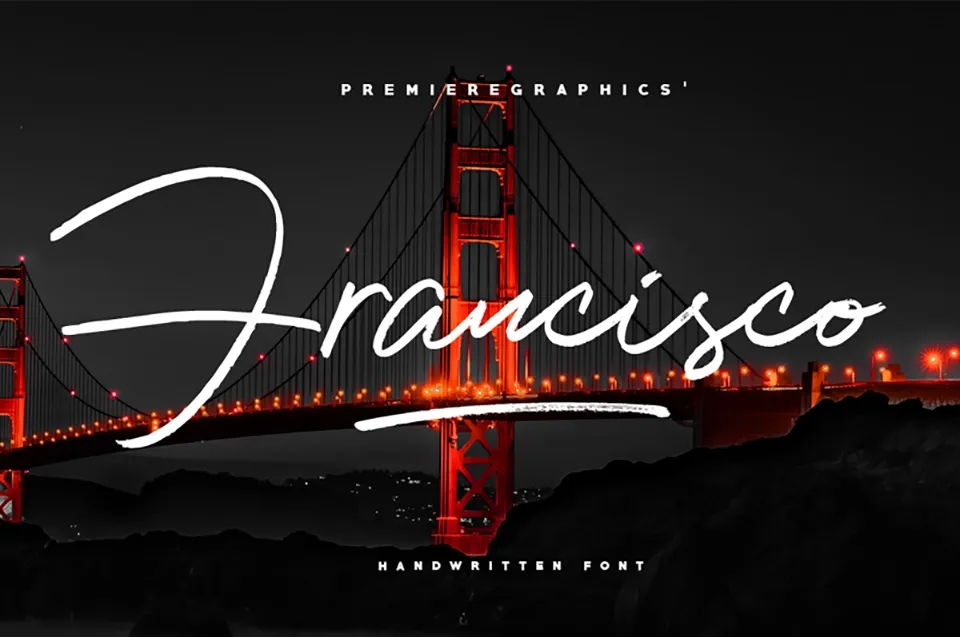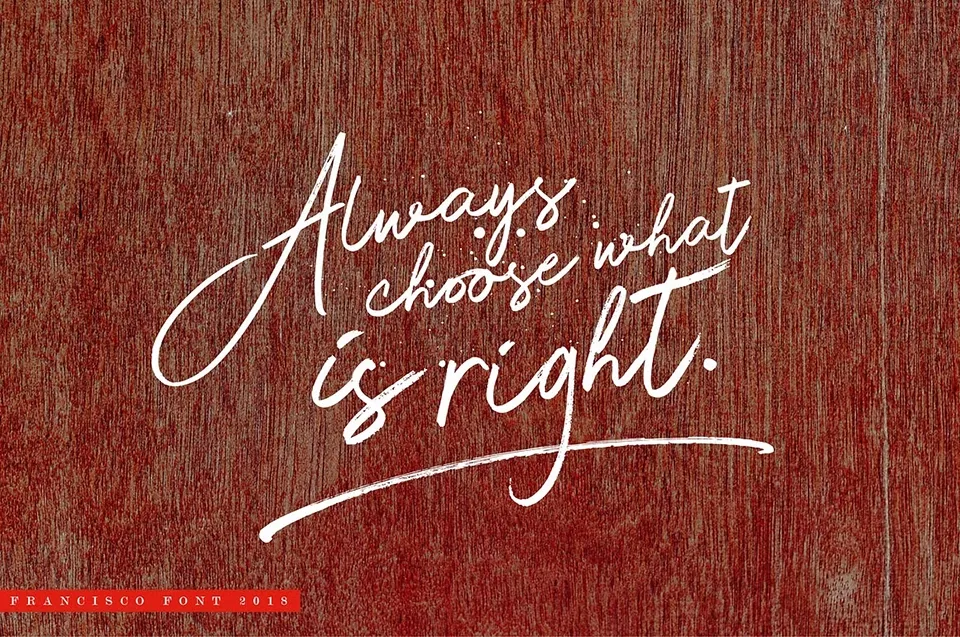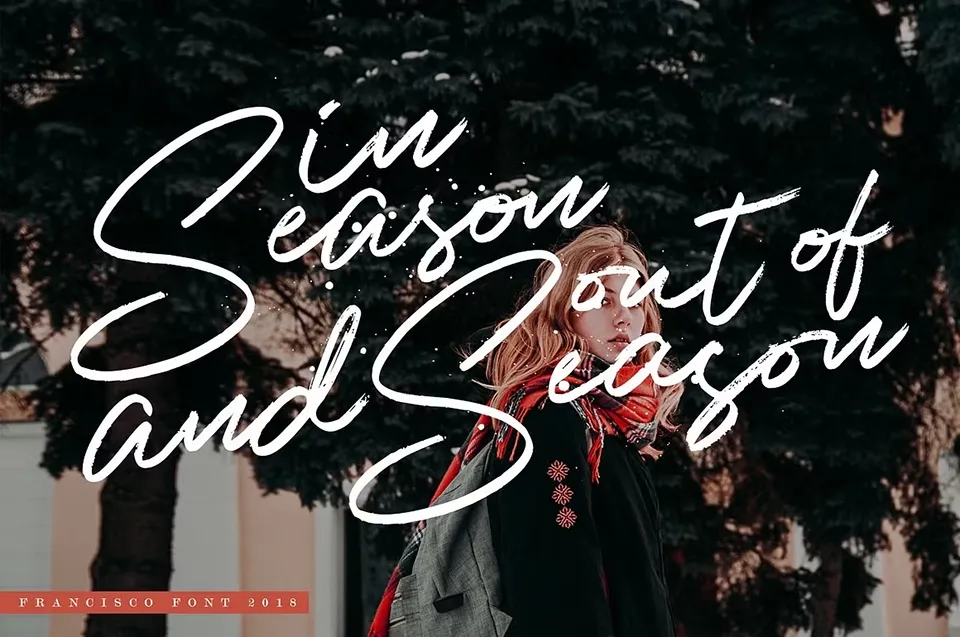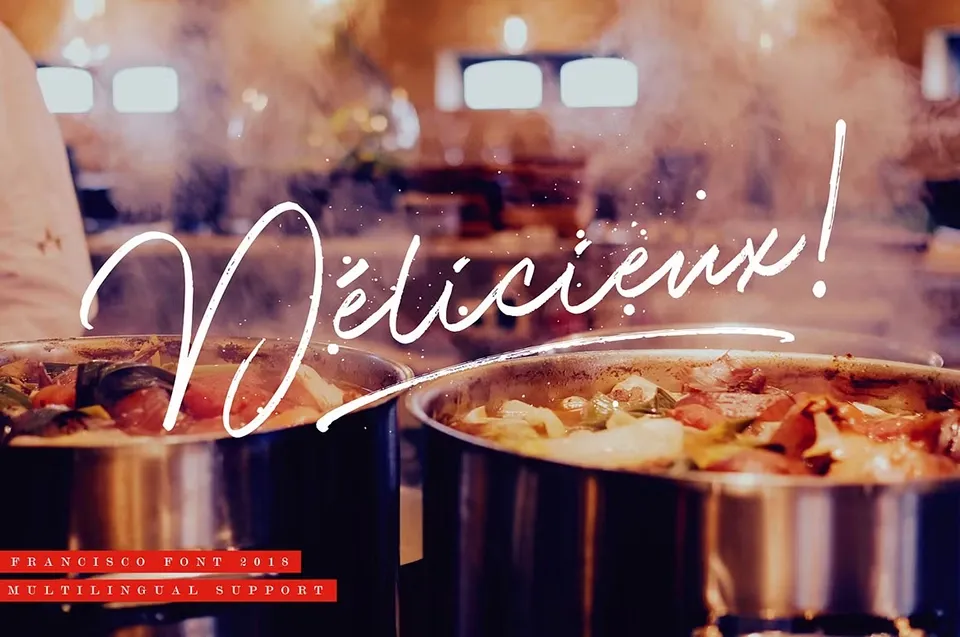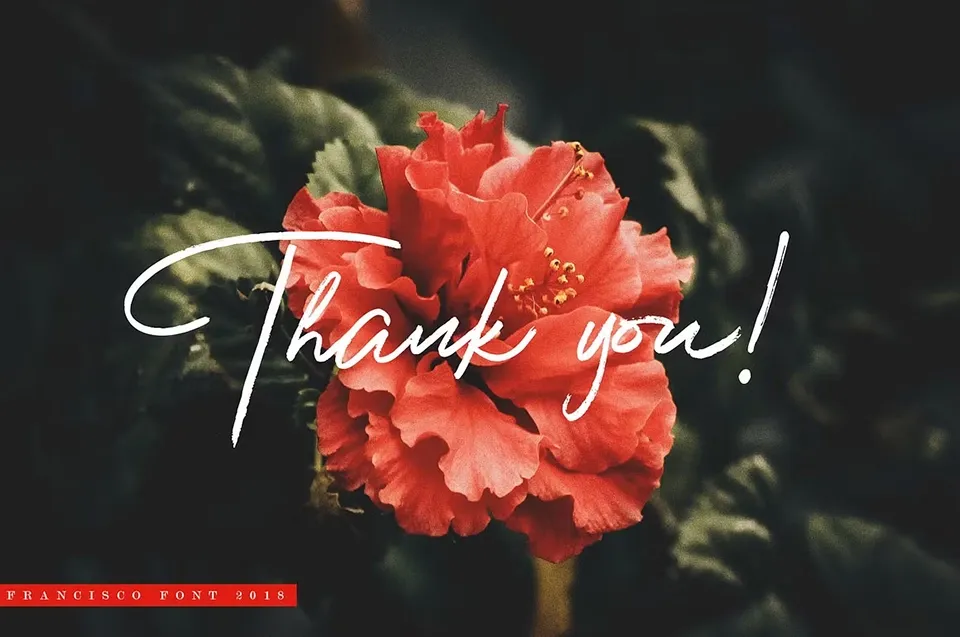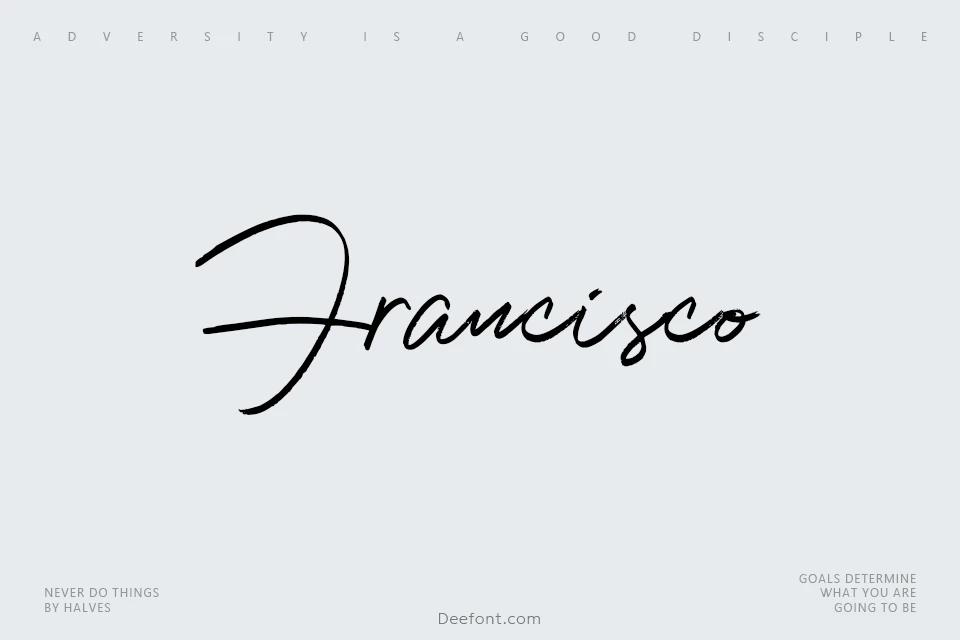
Francisco Font
Francisco Font is a stunning handwritten script font crafted by Premiere Graphics. With its realistic pen texture and flowing signature-like style, Francisco delivers authentic handwritten charm to your creative projects. This versatile typeface features elegant curves and dynamic strokes that bring a personal touch to any design. Complete with ligatures and multilingual support, Francisco excels in various applications including logos, branding, product packaging, and graphic design. Its natural flow and distinctive character make it perfect for creating eye-catching visual statements with a hint of sophistication. Whether for digital or print media, Francisco transforms ordinary text into expressive, personalized communication that captures attention and conveys style.